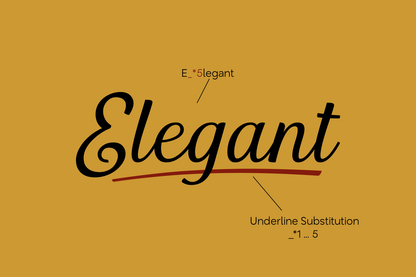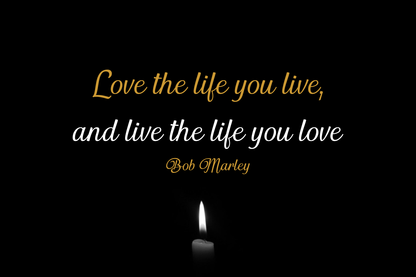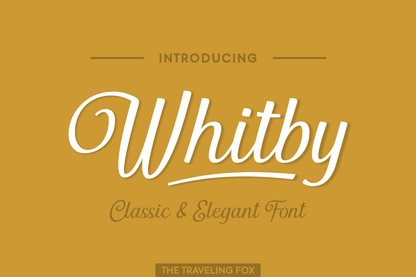
Classic and elegant, Whitby is a great script font option for a wide range of design projects. Legible and clean, Whitby is definitely a go-to script font.
Its smooth flow and refined curves make it ideal for branding, invitations, editorial layouts, and more. Whether you're working on a modern design or something with a timeless feel, Whitby adapts beautifully while maintaining a polished, professional look. Add Whitby to your collection and bring a touch of understated sophistication to every project.